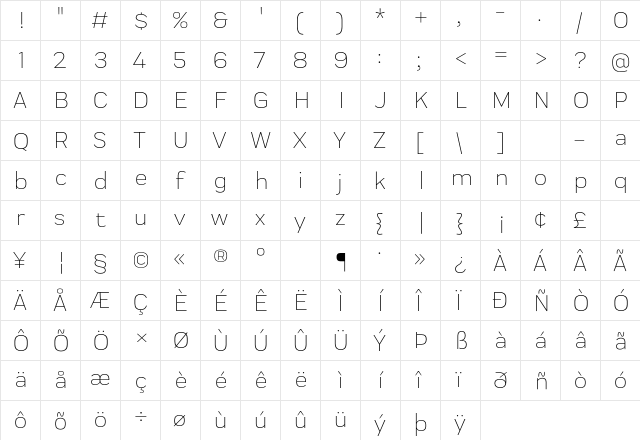
Praktika Light
| Foundry | Turku Type Industries |
| Designer | Emil Bertell |
Design Context for Praktika Typeface
Praktika offers clean, dependable letterforms without strong stylistic allegiance, making it a practical choice for designers who need flexibility. The delicate stroke weight brings airiness and refinement to layouts.